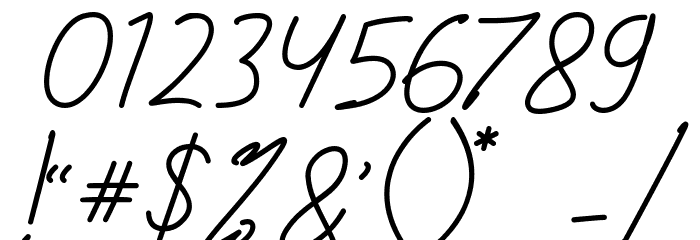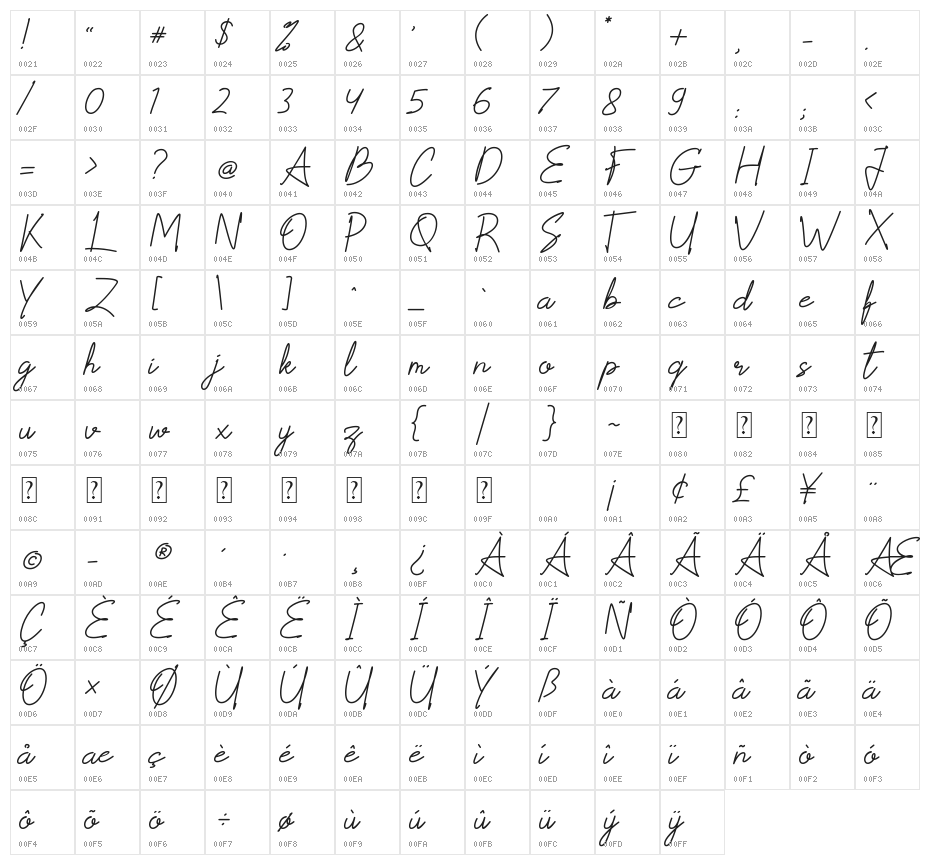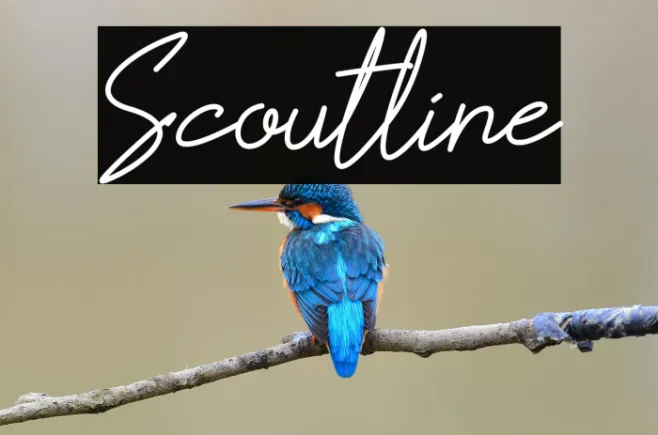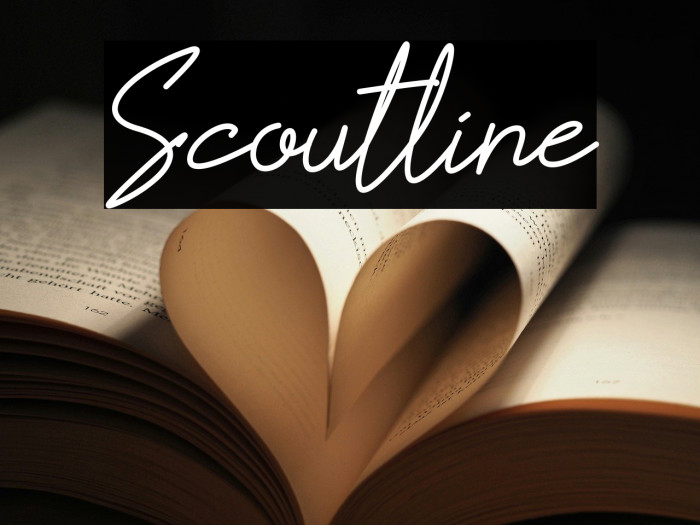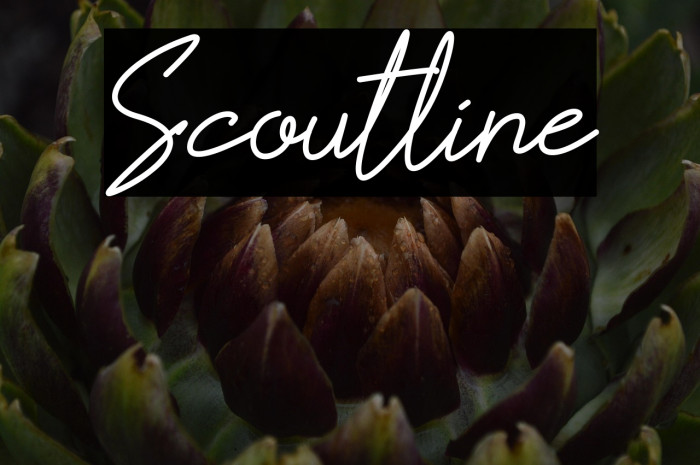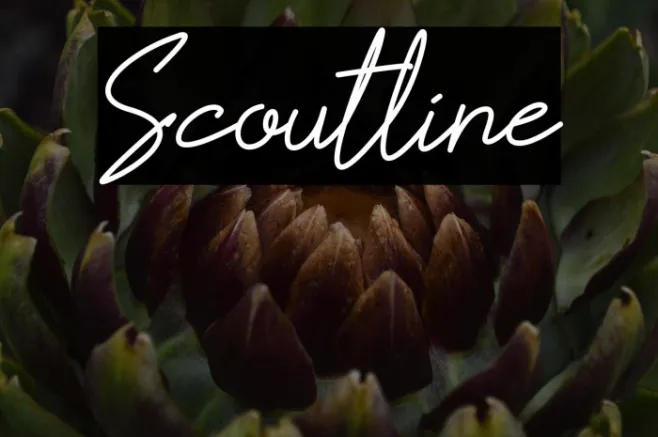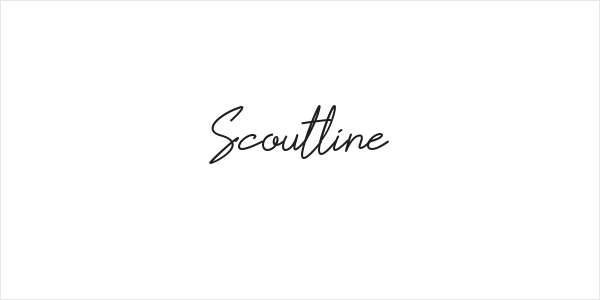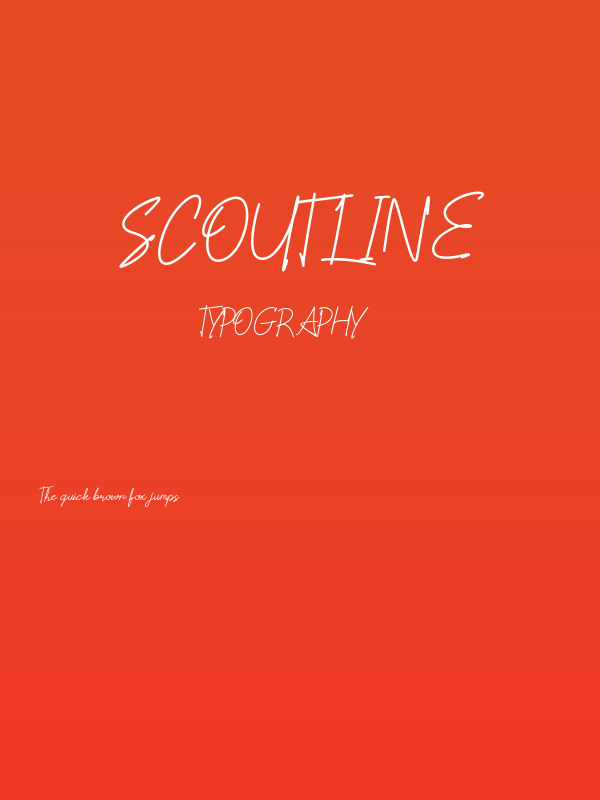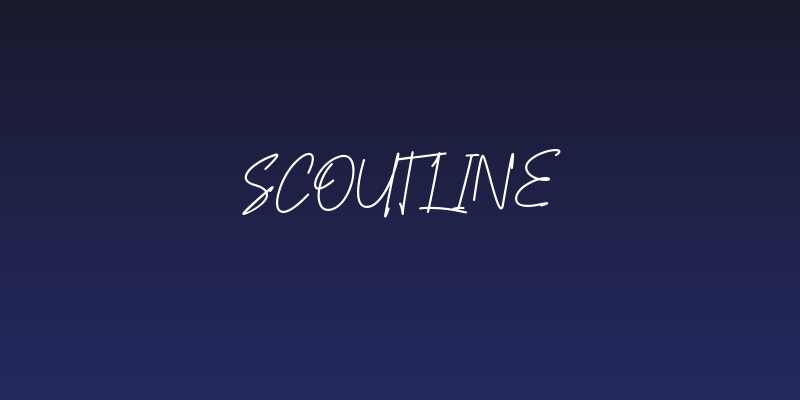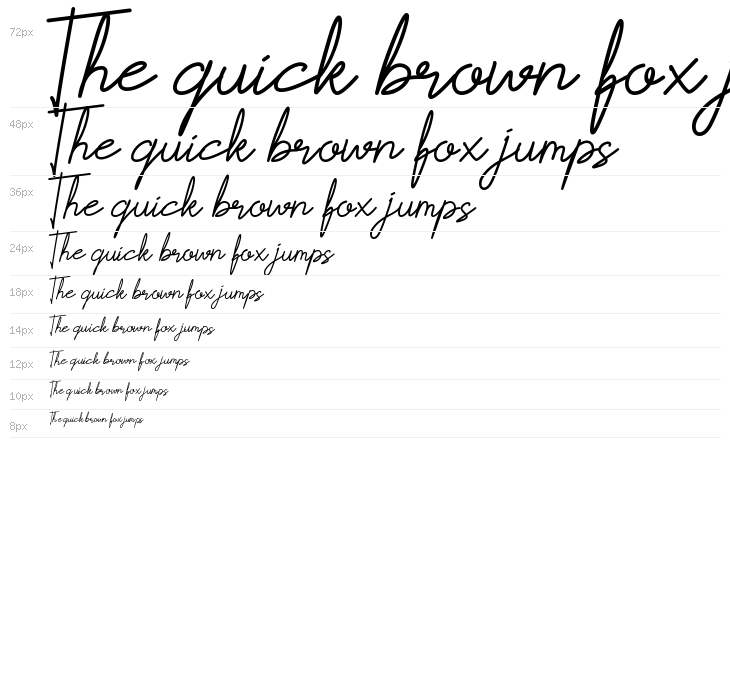
Scoutline Font
Scoutline Description
This font features a dynamic and energetic handwritten style, characterized by its fluid and continuous strokes. The uppercase letters are tall and slightly slanted, giving a sense of movement and spontaneity. The lowercase letters maintain a consistent flow, with some characters connecting seamlessly to others, enhancing the cursive feel. Numbers are clear and legible, maintaining the same lively style as the letters. Special characters are creatively integrated, adding to the overall playful and informal aesthetic. The font's thin strokes and varying line thicknesses contribute to its casual and approachable appearance.